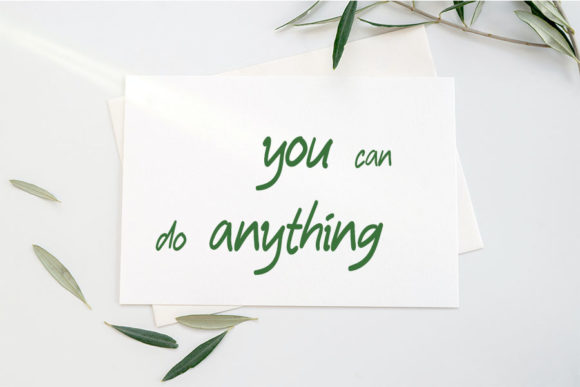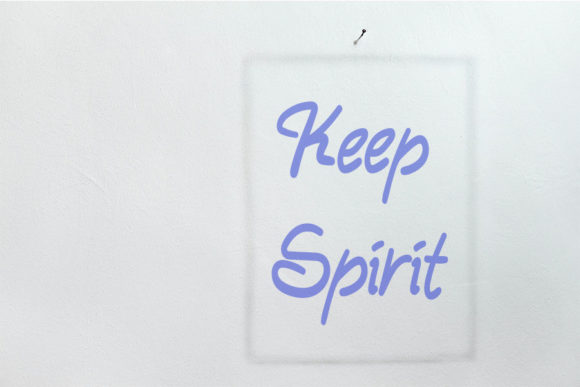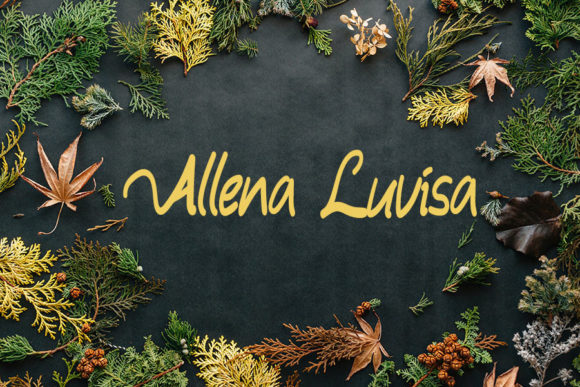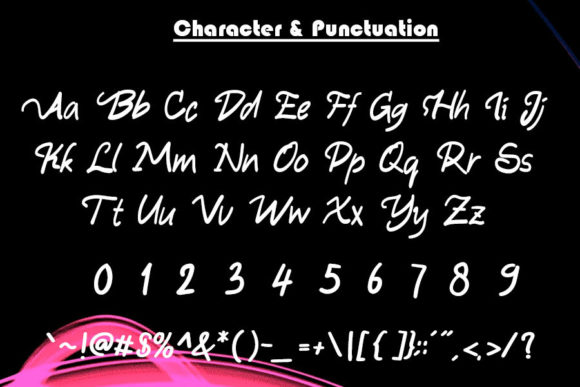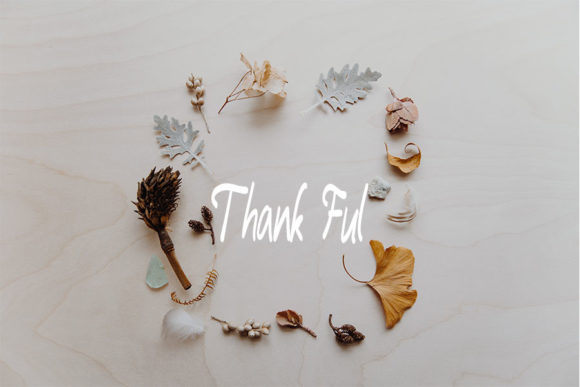
Introduction to Room Master Font
Do you ever find yourself stuck in front of a blank canvas, struggling to bring your creative vision to life? This is where the perfect design resource can make all the difference. For designers, discovering the ideal font can be the key to unlocking a successful project.
Enter the Room Master Font, a charming and adaptable handwritten font that’s sure to elevate your creative project. With its simple and clean design, this font is the perfect addition to any project, from websites to social media graphics. And the best part? The Room Master Font can be downloaded for free, making it a valuable resource for designers on a budget.
Whether you’re working on a high-quality design or just need a quick solution, the Room Master Font is an excellent choice. Its transparent background and versatile design make it easy to use and customize, giving you the freedom to focus on what matters most – bringing your creative vision to life.
Key Features of Room Master Font
- High-quality design resource ideal for creative projects requiring a modern aesthetic.
- Unique, modern design with a transparent background, allowing for easy customization and flexibility.
Honest Review: Room Master Font
I recently stumbled upon the Room Master Font, a design resource that has been making waves in the creative community. As a designer, I’m always on the lookout for high-quality fonts that can elevate my projects. Let’s dive into my honest review of this font.
- ✨ Unique design aesthetic: The Room Master Font has a distinct, modern feel that sets it apart from other fonts in its class.
- ✨ High quality: The font is crisp and clear, making it perfect for digital projects.
- ⚠️ Limited character set: The font’s character set is somewhat limited, which may be a drawback for designers working on projects that require a wide range of characters.
- ⚠️ Not ideal for transparent backgrounds: Due to its design, the font may not be the best choice for projects with transparent backgrounds.
Overall, I’m impressed with the Room Master Font’s unique design aesthetic and high quality. While it has some limitations, it’s a solid addition to any designer’s toolkit. If you’re looking for a free font that can add some flair to your creative project, the Room Master Font is definitely worth checking out.
The Room Master Font is a versatile design resource that can elevate your creative project with a high-quality, modern aesthetic. This font features a transparent background, making it a great choice for designers looking to add a touch of sophistication to their work.
The Room Master Font is a great choice for designers working on a variety of projects, including branding, packaging, and advertising. Its modern aesthetic and transparent background make it a versatile design resource that can be used in a range of creative contexts.
Does Room Master Font have a transparent background?
Yes, Room Master Font has a transparent background, making it ideal for creative projects that require a clean and minimalist design. This feature allows you to easily place the font over any background image or color.